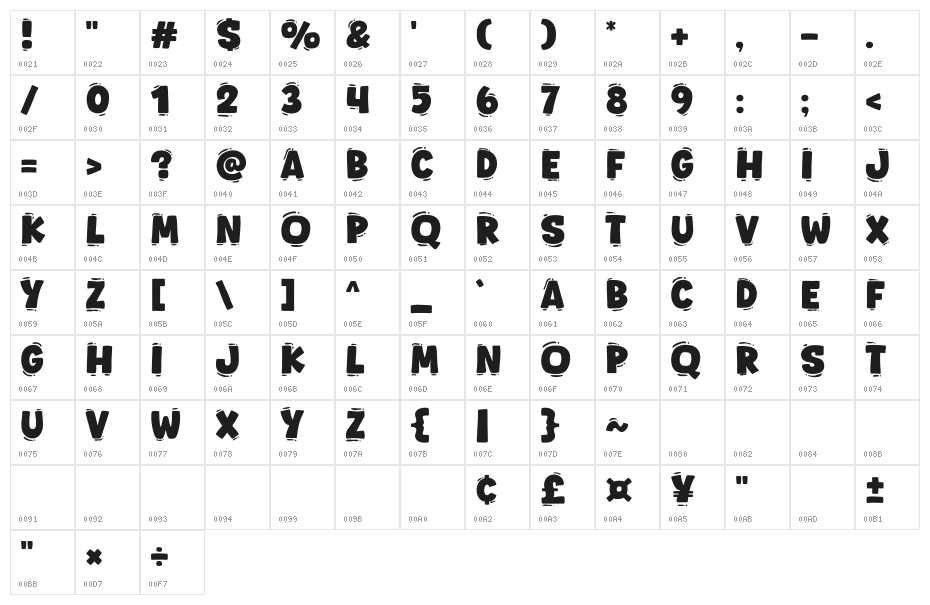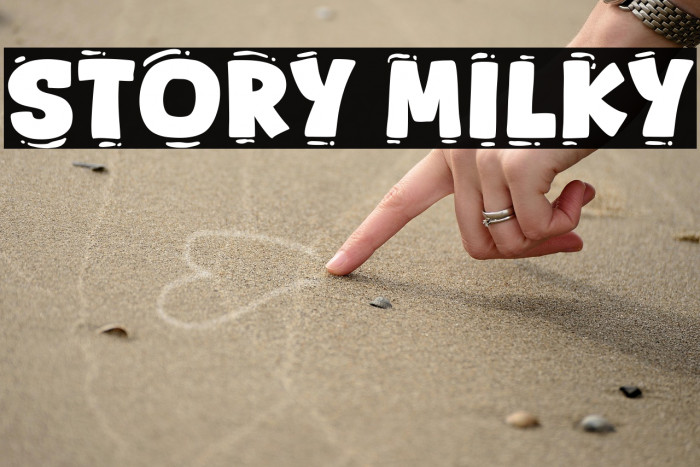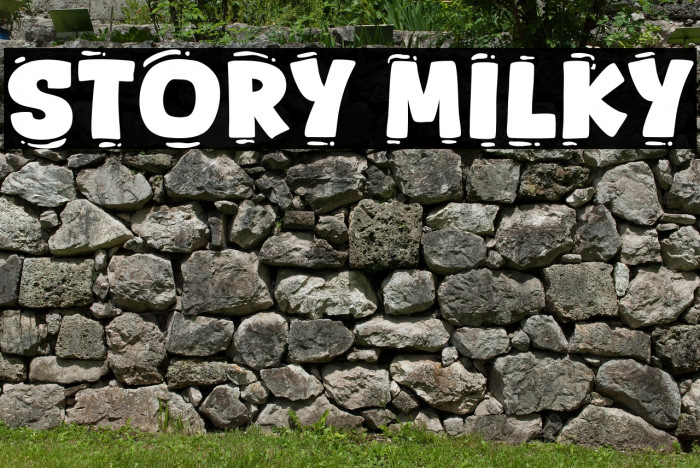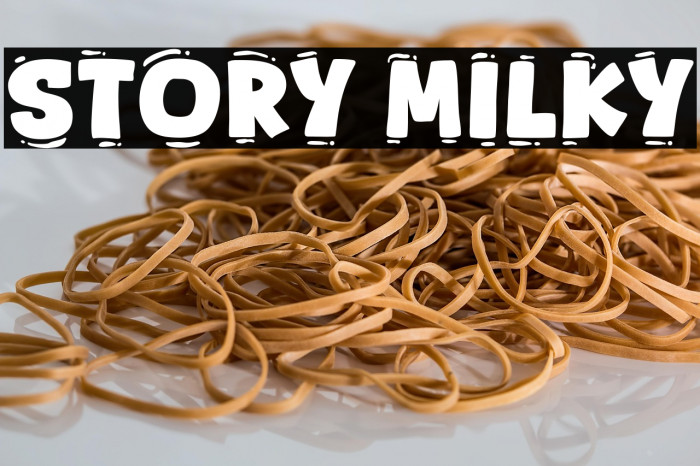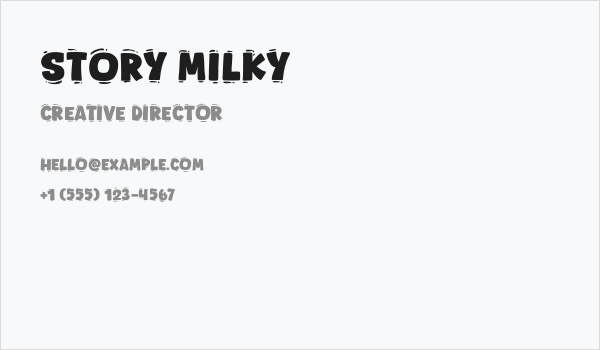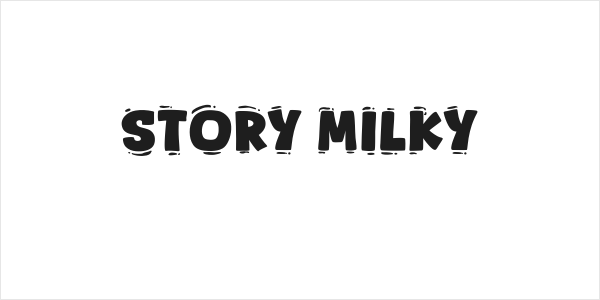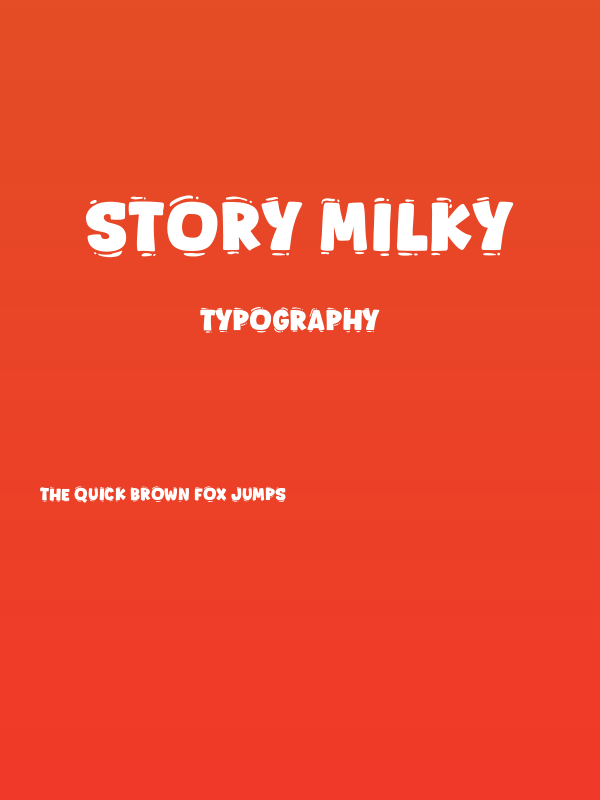
Story Milky Font
Story Milky Description
This playful and bold font features thick, rounded characters with a unique, whimsical style. Each letter is adorned with subtle, irregular edges that give it a hand-drawn appearance, adding to its charm and approachability. The numbers and special characters maintain this playful aesthetic, making the font suitable for creative and informal projects. Its boldness ensures high readability, while the quirky design elements make it stand out in any context. The font's overall style is both modern and fun, perfect for capturing attention and conveying a sense of joy and creativity.
| Overall Style | Modern, Fun |
| Proposed Projects | Ideal for children's books, playful branding, creative posters, and informal invitations. |